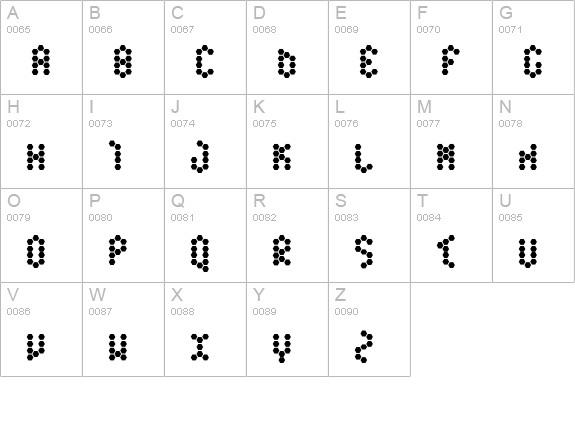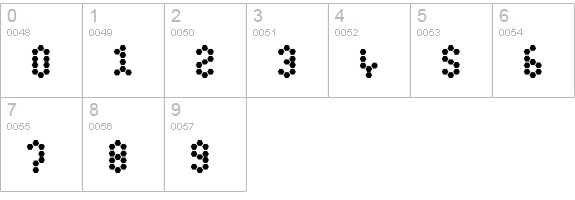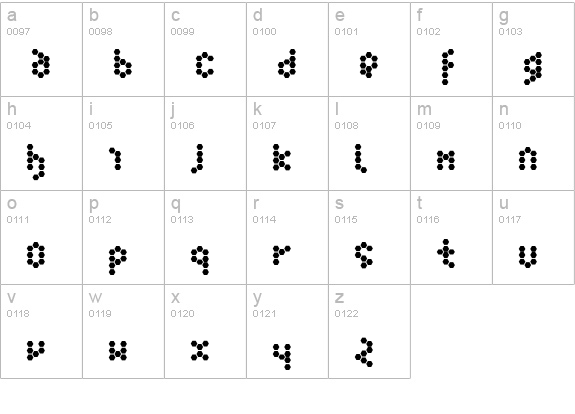
Hive-Base Font Details
Introducing Hive-Base font, a modern and versatile typeface that is sure to elevate your design projects to the next level. With its sleek lines and geometric shapes, Hive-Base exudes a sense of sophistication and style. Whether you're designing a logo, poster, or website, this font is sure to make a bold statement. What's even better? Hive-Base is completely free to download at FontsMarket.com. Yes, you read that right - you can get your hands on this stunning font without spending a penny. So why wait? Add Hive-Base to your font collection today and watch your designs come to life with a touch of elegance and flair.